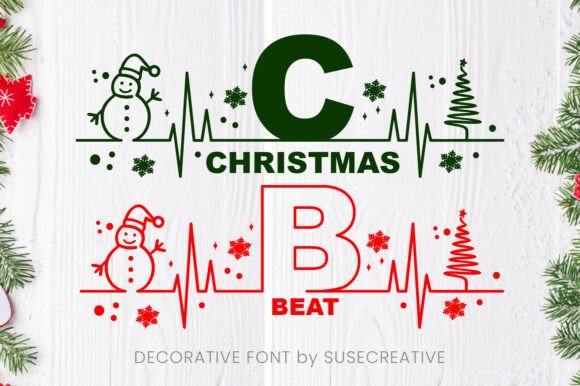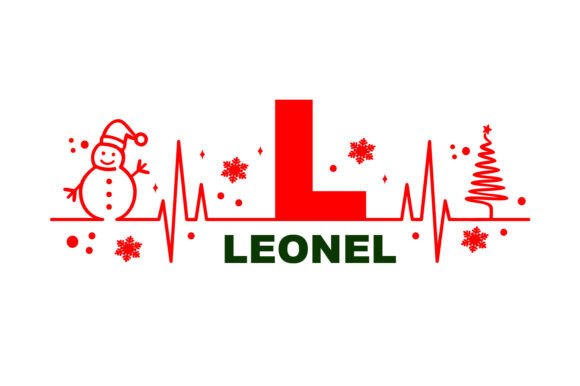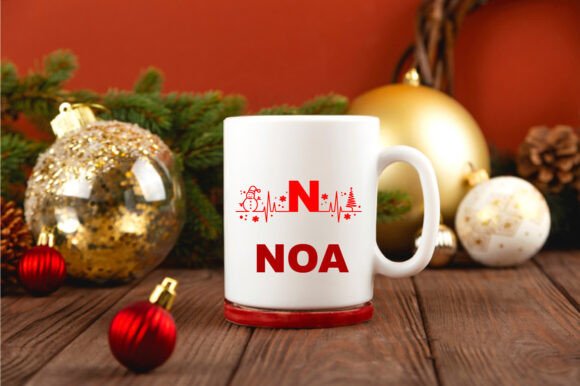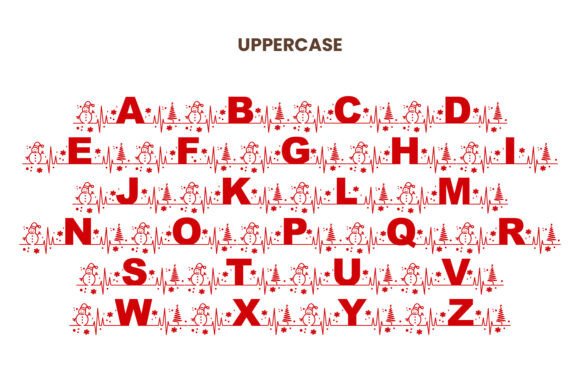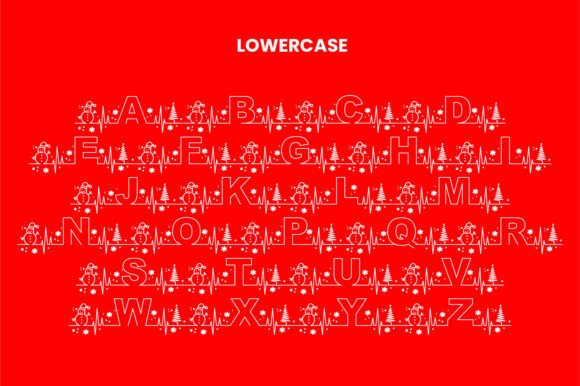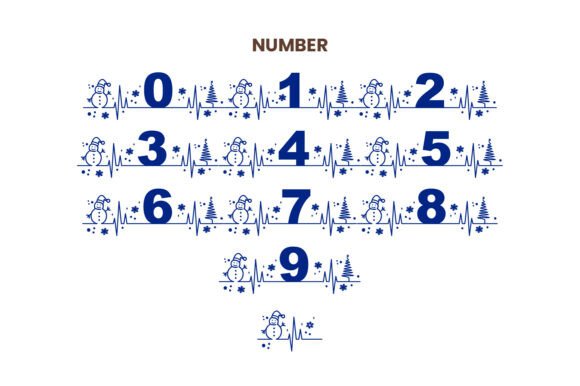
Introducing Christmas Beat Font: The Ultimate Holiday Typeface
The holiday season is upon us, and with it comes the need for festive and fun designs that capture the spirit of Christmas. For designers and crafters looking to add a touch of cheer to their projects, Christmas Beat Font is the perfect solution. This vibrant and playful typeface is specifically designed to bring joy and style to your holiday creations.
What is Christmas Beat Font?
Christmas Beat Font is a unique and festive typeface that combines bold and stroked letters with playful Christmas patterns. The font features a delightful mix of snowmen, trees, stars, and other holiday-themed decorations that add a touch of whimsy to any design. Whether you’re creating holiday cards, banners, or social media graphics, Christmas Beat Font is sure to make your project stand out.
Key Features of Christmas Beat Font
- Festive and playful design: Christmas Beat Font is designed to capture the fun and spirit of the holiday season.
- Mix of bold and stroked letters: The font features a combination of bold and stroked letters, creating a visually appealing contrast.
- Playful Christmas patterns: The font includes a range of playful Christmas patterns, such as snowmen, trees, and stars.
- Versatile and easy to use: Christmas Beat Font is perfect for a range of design projects, from holiday cards to banners and more.
Christmas Beat Font is a dream come true for designers and crafters looking to add a touch of holiday cheer to their projects. The font is perfect for:
- Holiday cards and invitations: Create festive and fun holiday cards and invitations that will delight your friends and family.
- Social media graphics: Add a touch of holiday cheer to your social media graphics and make your posts stand out.
- Banners and signs: Create eye-catching banners and signs that will add to the festive atmosphere of any holiday event.
- Craft projects: Use Christmas Beat Font to add a personal touch to your craft projects, such as scrapbooking and DIY gifts.
Tips for Using Christmas Beat Font
Here are a few tips for getting the most out of Christmas Beat Font:
- Experiment with colors: Try out different color combinations to find the perfect look for your design.
- Mix and match patterns: Combine different Christmas patterns to create a unique and eye-catching design.
- Add a personal touch: Use Christmas Beat Font to add a personal touch to your designs, such as a name or special message.
Christmas Beat Font is the perfect way to add a touch of holiday cheer to your designs. With its festive and playful design, mix of bold and stroked letters, and range of Christmas patterns, this font is sure to bring joy and style to your holiday creations. Whether you’re a designer or crafter, Christmas Beat Font is a must-have for the holiday season.